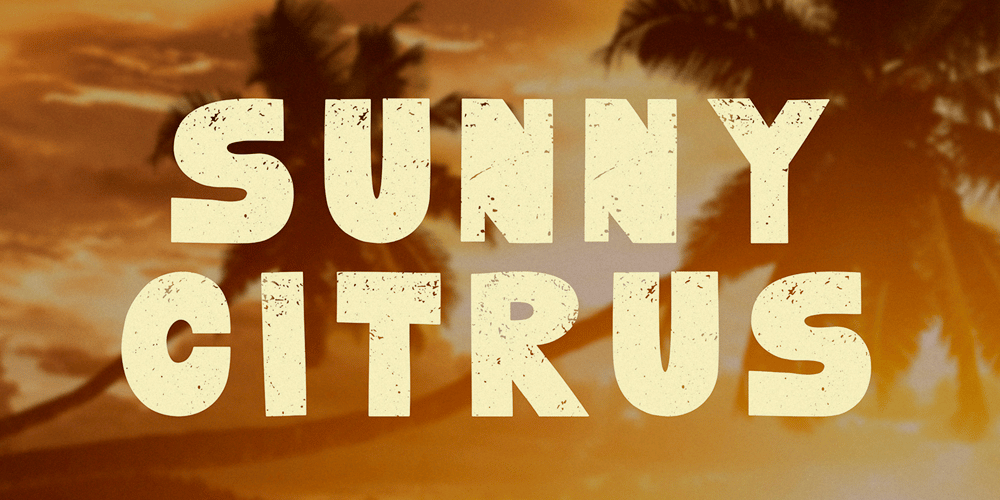
Sunny Citrus
Sunny Citrus font
Sunny Citrus Font Family was designed by Anastasia Kuznetsova and published by Anastasia Kuznetsova. Sunny Citrus contains 1 styles and family package options. Add a stylish touch to your design with the new duo Sunny Citrus font. Consisting of textured sans-serif capital letters and bold offers you many possibilities in your professional design projects.Perfect for creating beautiful typographic designs – perfect for branding, posters, book covers, social media, merchandise and more.This font is filled with a whole bunch of amazing additions – bold strokes and rough pieces.Font Features• character set A-Z, a-z;• 1 languages (English);• numbers and punctuation marks, symbolsIt is recommended to use it in Adobe Illustrator or Adobe PhotoshopMade with love ♡Thank you for stopping by, and I wish you a creative day!